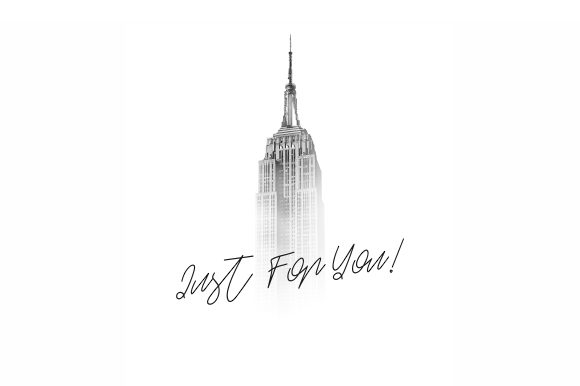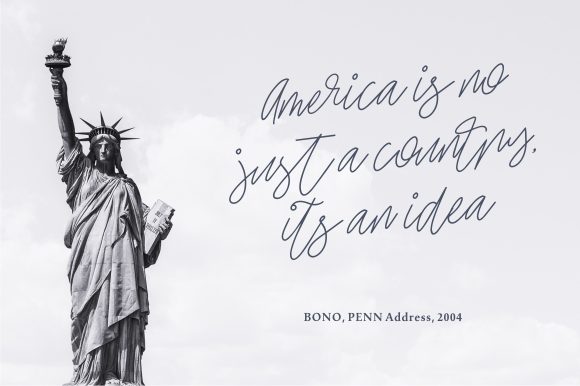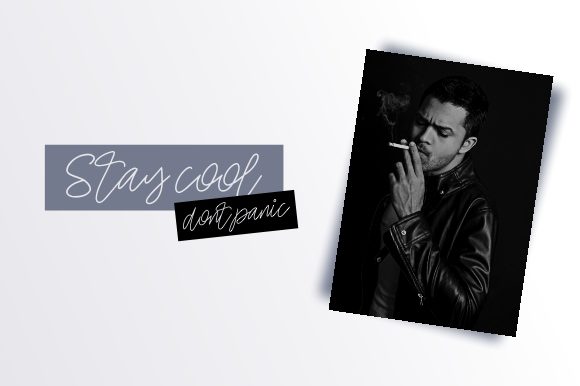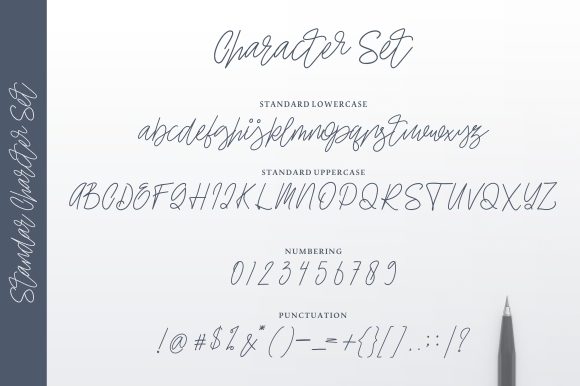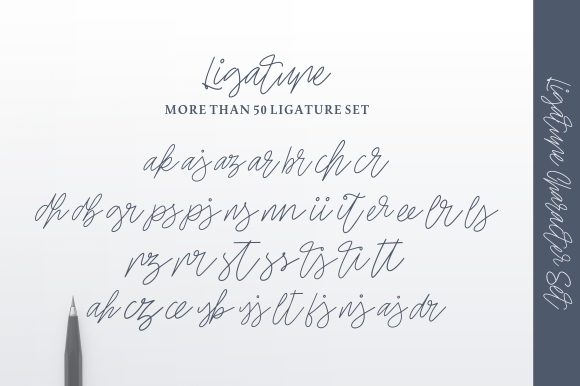
About Ellaine Font
Introducing The Ellaine, a beautiful signature script font distinguished by its elegant lines, making it the perfect choice for crafting your personal brand with a natural and refined touch. This font is more than just a typeface; it’s a design companion that brings sophistication and a personal flair to your creative endeavors.
The Ellaine’s beautiful signature script style adds a touch of elegance and authenticity to your designs. Its carefully crafted lines create a natural and fluid appearance, making it an ideal font for those seeking a personalized and refined aesthetic.
Whether you’re developing a personal brand, creating a signature logo, or working on any project that requires a natural and elegant touch, The Ellaine rises to the occasion. Its versatility extends to various design applications, allowing you to imbue your projects with a sense of style and authenticity.
In personal branding, The Ellaine establishes a signature style that reflects your individuality and sophistication. For logos and visual identities, the font adds a refined and natural touch, creating a lasting impression. Its elegant lines make it suitable for a wide range of creative applications, from business cards to social media graphics.
In summary, The Ellaine is not just a font; it’s a design asset that enhances your personal brand with beautiful, elegant lines. Embrace its signature script style for logos, branding, and various design projects, letting The Ellaine add a touch of natural sophistication to your creative endeavors.